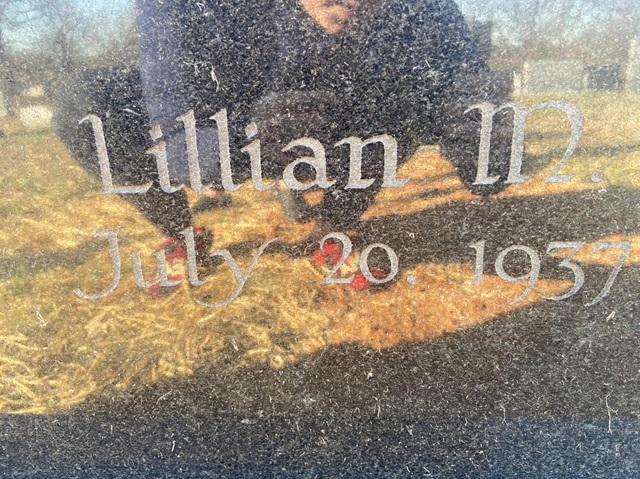
Having a hard time finding this one… any ideas?
In the MonuCad system it’s labeled as K&O SB-1
Hello, this is a lettering style typically referred to as Round Serif, originally printer in a book on lettering by a man named Martin Meijer in 1956. It was brought into the industry by an AICA member as part of their series of blueprint alphabets, and was often done by hand before being digitized. There are several digital versions that vary in weight, and elegance, and most of them have been very poorly drawn. There are multiple versions created by AICA members, as well as versions in Monu-Cad, and Cochran’s software. As mentioned by Chris, the Monu-Cad version was renamed to K&O Sandblast 1.
This version is one of the more properly drawn versions, mimicking actual broad-nib calligraphy, and keeping the beauty of the original. This is likely one of the custom versions of the font created by an AICA member. I would reach out to Hunt Memorials of Nashville, as I have seen them use this specific version of the font.
Eventually there are plans to create an MLC version of the font, properly drawn according to the original version.